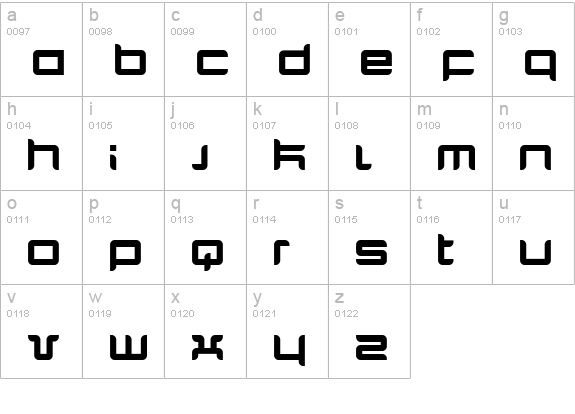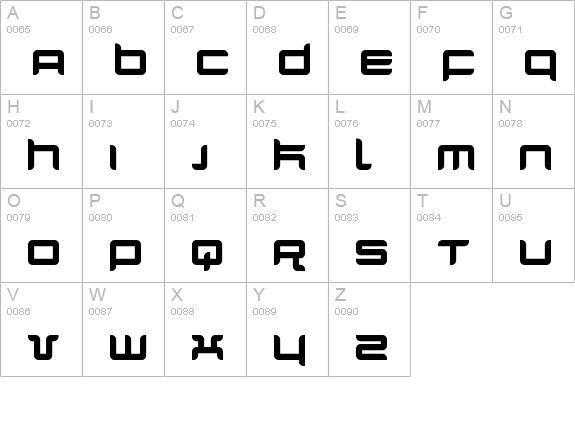
Quarx font is a stunning typeface that effortlessly combines modern aesthetics with timeless elegance. Its sleek and sophisticated design is perfect for adding a touch of class to any project, whether it's a logo, website, or print materials. This font features clean lines and beautifully balanced proportions, making it highly legible and versatile. Its unique letterforms have a contemporary twist, giving your designs a stylish edge. One of the best things about Quarx font is that it is completely free. Yes, you heard it right - this incredible font is freely available to download at FontsMarket.com. So, you can enhance your creativity without breaking the bank. With Quarx font, you have the freedom to create captivating typography that will make your designs stand out from the crowd. Its wide range of weights and styles offer endless possibilities for experimentation and customization. Whether you're going for a bold and impactful look or a subtle and refined feel, Quarx font has got you covered. Designed with meticulous attention to detail, Quarx font ensures optimum readability in any size or context. Its carefully crafted curves and precise letter spacing make it a joy to read, whether on a billboard or a tiny smartphone screen. So, why settle for ordinary when you can elevate your design game with Quarx font? Embrace the free-spirited creativity that this font brings and watch your projects come to life. Download Quarx font for free at FontsMarket.com and unlock a world of typographic possibilities.